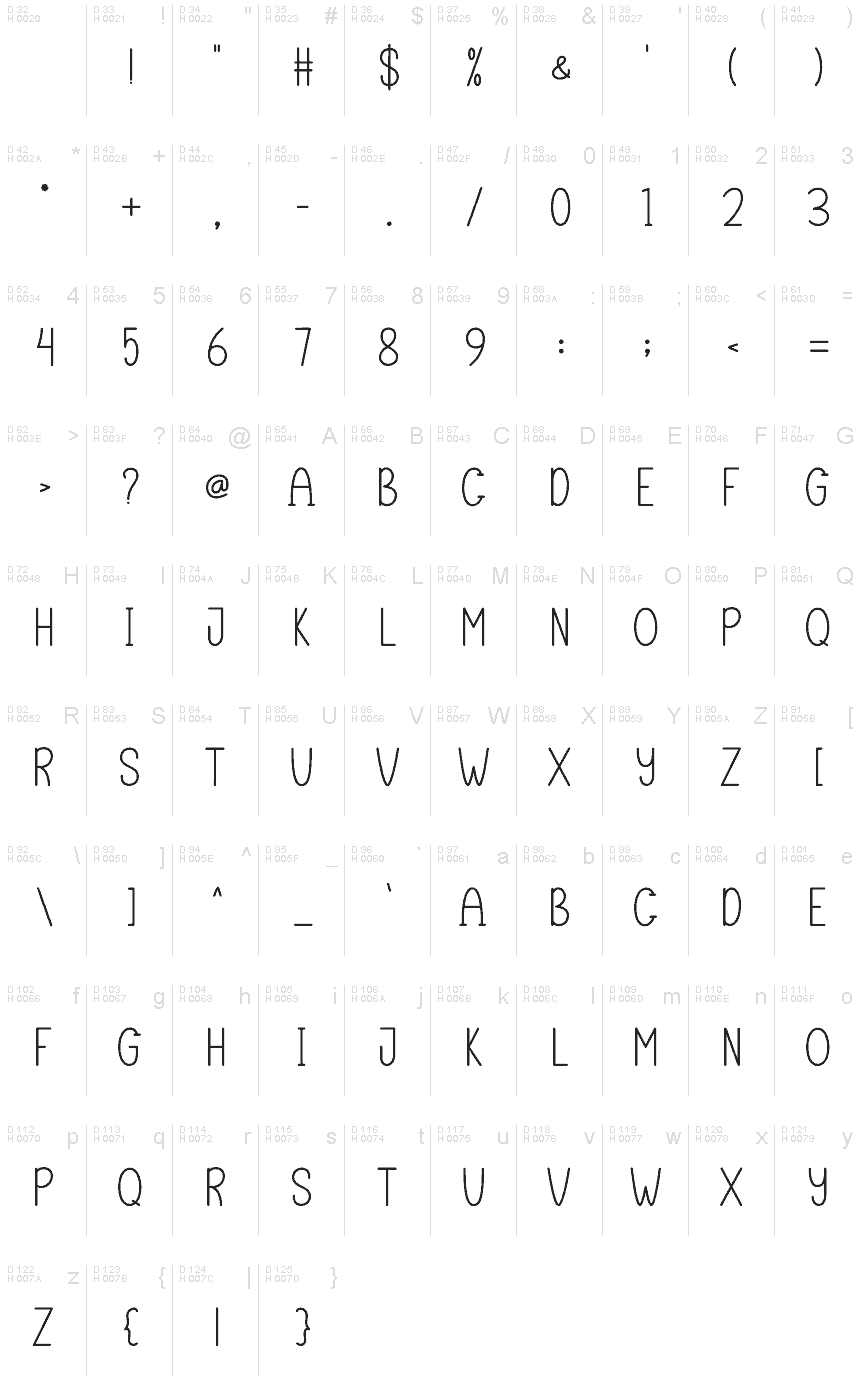
Magic House
Magic House font by Andi Moz is a light geometric handwritten font with rounded character outlines. It’s inspired by art deco typography, meaning it delivers its sleek and minimalistic aura with lined strokes and smooth curves. Despite its apparent simplicity, the overall look of Magic House is glamorous and elegant with an intriguing vintage feel.
The main feature Magic House has in store is allowing designers to beautify their designs without going overboard. Its free typeface can be brought to use in packaging designs, magazines, branding boards, social media platforms, web designs, invitations, headline type for posters/flyers/billboards, logos…